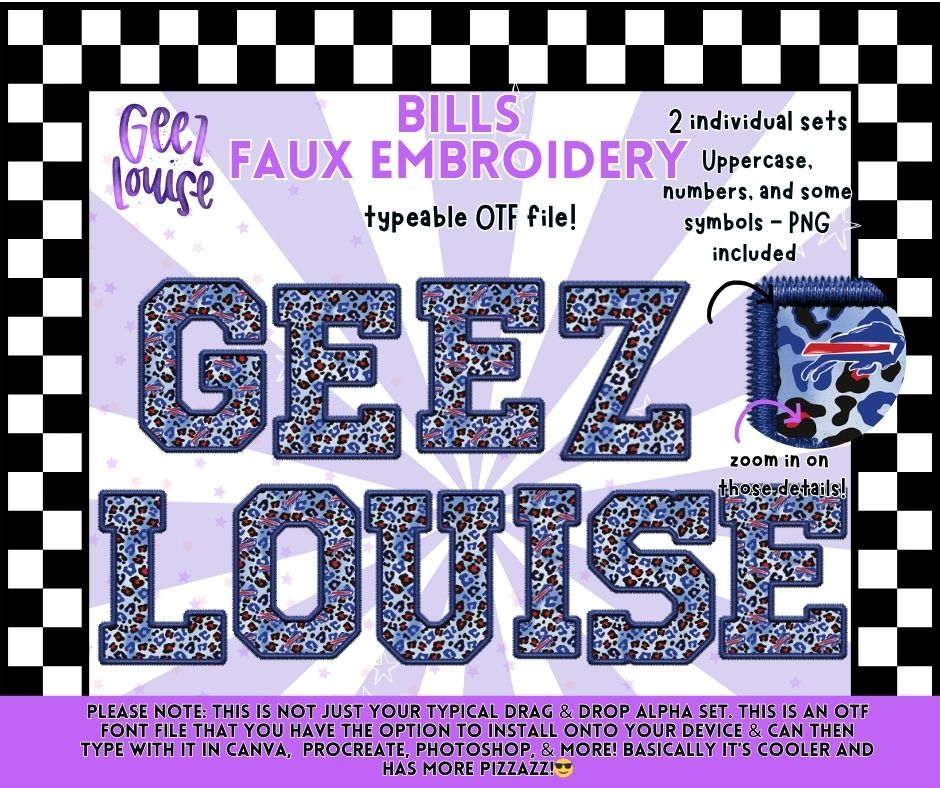
Bills Faux Embroidery Typeable OTF Alpha Font + PNG Sets
Crank the sass all the way up with Geez Louise – Bills Faux Embroidery Alpha, a bold, stitched-up typeable OTF font bursting with leopard print, texture, and unapologetic flair.
🎨 Design Style
Colorful leopard print with faux stitched embroidery edges Bold, playful, and full of personality Perfect for tees, tumblers, sublimation, branding, social media graphics, and digital designs that need to shout (not whisper)
If you’re over basic fonts and ready for something with stitched swagger and serious pizzazz, Geez Louise delivers.